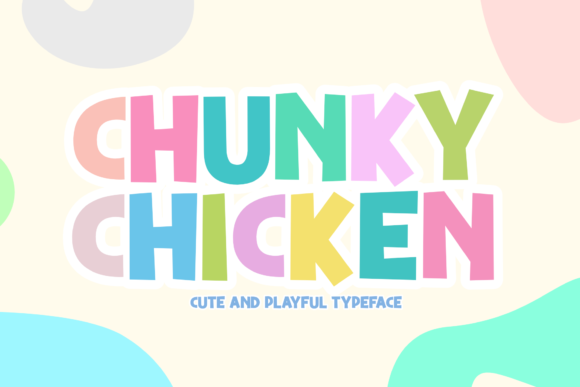
Introducing Chunky Chicken Font: The Ultimate Display Font for Creative Designs
Are you looking for a font that can add a touch of playfulness and uniqueness to your designs? Look no further than Chunky Chicken Font! This cute yet chunky lettered display font is perfect for a wide range of creative projects, from game designs and animation to product packaging, posters, sports, music, and more.
What is Chunky Chicken Font?
Chunky Chicken Font is a display font that features a unique, chunky lettered design. Its bold and playful shape makes it perfect for headlines, titles, and short text passages. The font is designed to be eye-catching and attention-grabbing, making it ideal for use in a variety of creative projects.
Key Features of Chunky Chicken Font
- Unique Shape: Chunky Chicken Font features a one-of-a-kind design that sets it apart from other fonts.
- Cute and Playful: The font has a cute and playful feel that’s perfect for designs that require a touch of whimsy.
- Chunky Lettering: The font features chunky lettering that’s bold and eye-catching.
- Versatile: Chunky Chicken Font can be used in a wide range of creative projects, from game designs and animation to product packaging, posters, sports, music, and more.
Use Cases for Chunky Chicken Font
Chunky Chicken Font is a versatile font that can be used in a variety of creative projects. Here are some use cases where the font can be used:
- Game Designs: The font’s bold and playful shape makes it perfect for use in game designs, such as game titles, logos, and UI elements.
- Animation: Chunky Chicken Font can be used in animation projects, such as title sequences, character designs, and storyboards.
- Product Packaging: The font’s unique shape and playful feel make it perfect for use in product packaging, such as labels, tags, and branding materials.
- Posters: Chunky Chicken Font can be used in poster designs, such as movie posters, event posters, and advertising posters.
- Sports and Music: The font’s bold and playful shape makes it perfect for use in sports and music-related designs, such as logos, jerseys, and album covers.
Benefits of Using Chunky Chicken Font
Using Chunky Chicken Font in your designs can offer a range of benefits, including:
- Attention-Grabbing: The font’s bold and playful shape is designed to grab attention and draw the eye.
- Unique and Creative: Chunky Chicken Font offers a unique and creative design that can help your designs stand out from the crowd.
- Versatile: The font can be used in a wide range of creative projects, making it a versatile addition to your design toolkit.
- Easy to Read: Despite its bold and chunky design, Chunky Chicken Font is easy to read, making it perfect for use in titles, headings, and short text passages.
How to Use Chunky Chicken Font
Using Chunky Chicken Font in your designs is easy. Here are some tips to get you started:
- Choose the Right Size: Chunky Chicken Font works best in larger sizes, such as headings and titles.
- Experiment with Colors: The font looks great in a range of colors, so don’t be afraid to experiment and find the perfect color for your design.
- Pair with Other Fonts: Chunky Chicken Font can be paired with other fonts to create a unique and creative design.
- Use in Combination with Images: The font looks great when used in combination with images, so consider using it to add text to your images.
Chunky Chicken Font is a unique and creative display font that’s perfect for a wide range of creative projects. Its bold and playful shape makes it attention-grabbing and easy to read, while its versatility makes it a great addition to any design toolkit. Whether you’re working on a game design, animation project, product packaging, poster, or sports or music-related design, Chunky Chicken Font is a great choice.